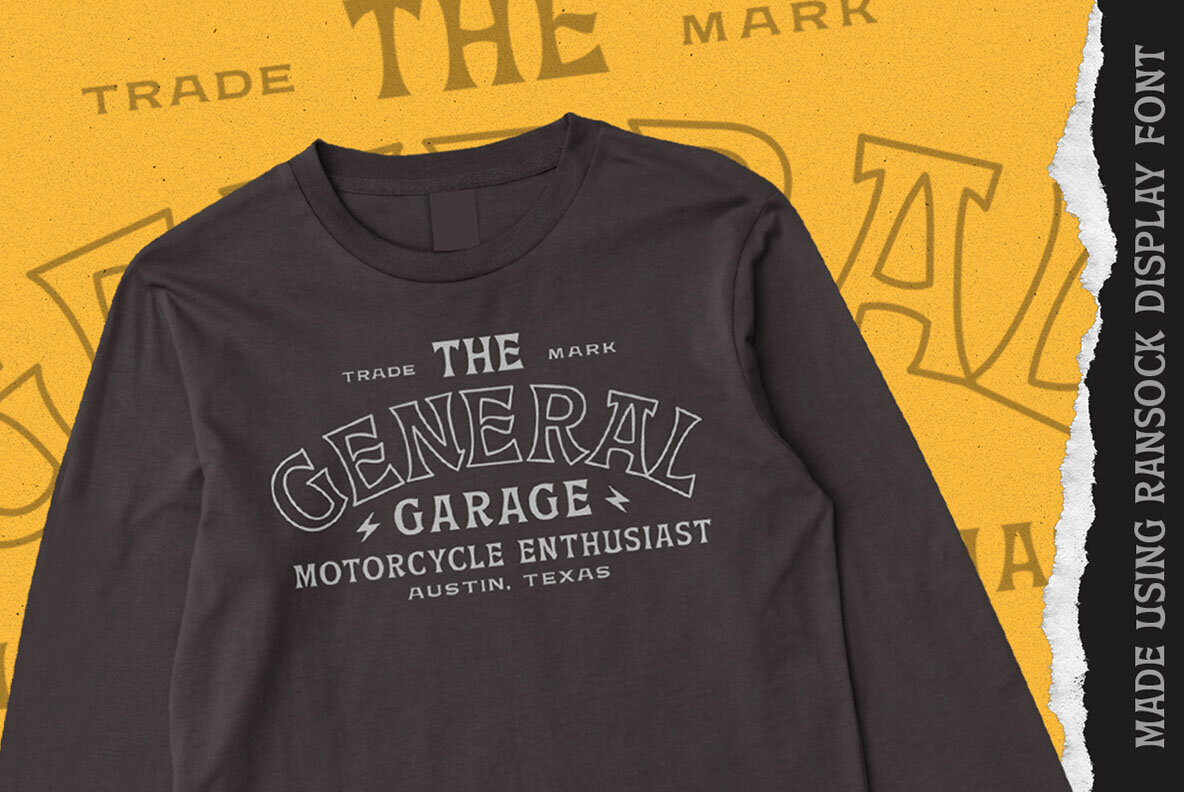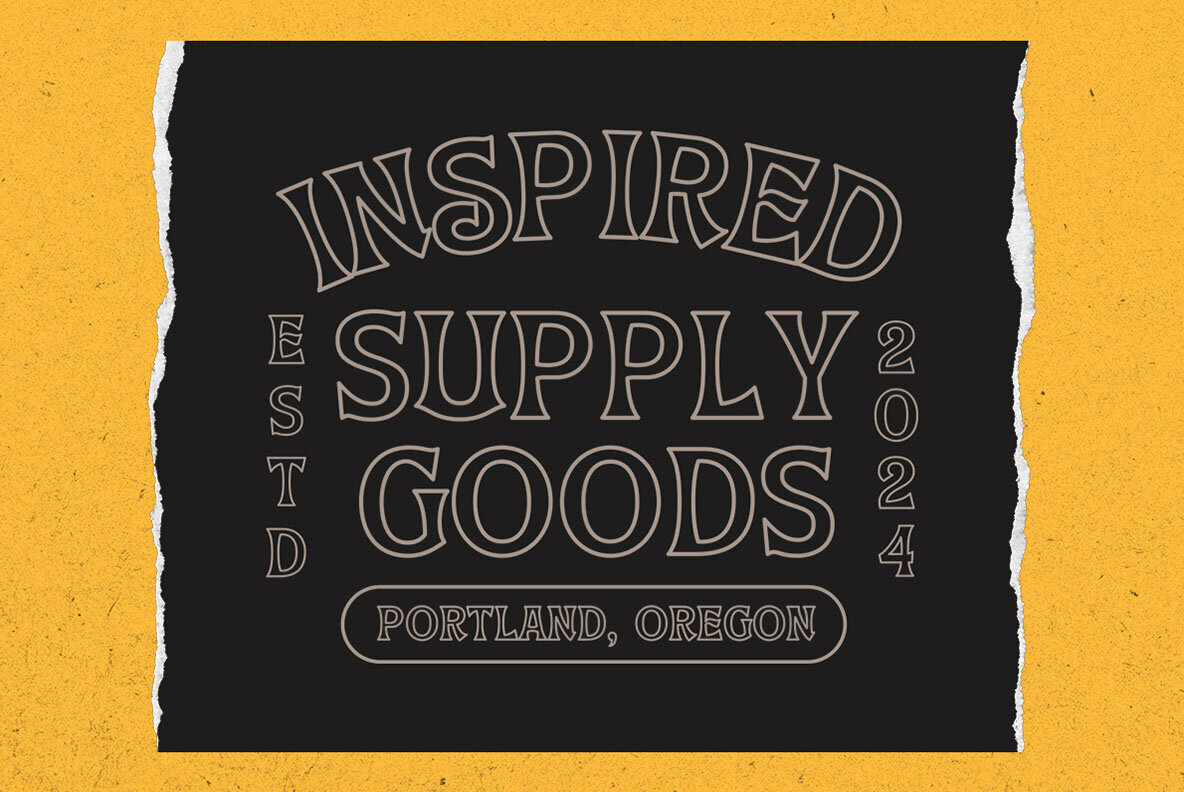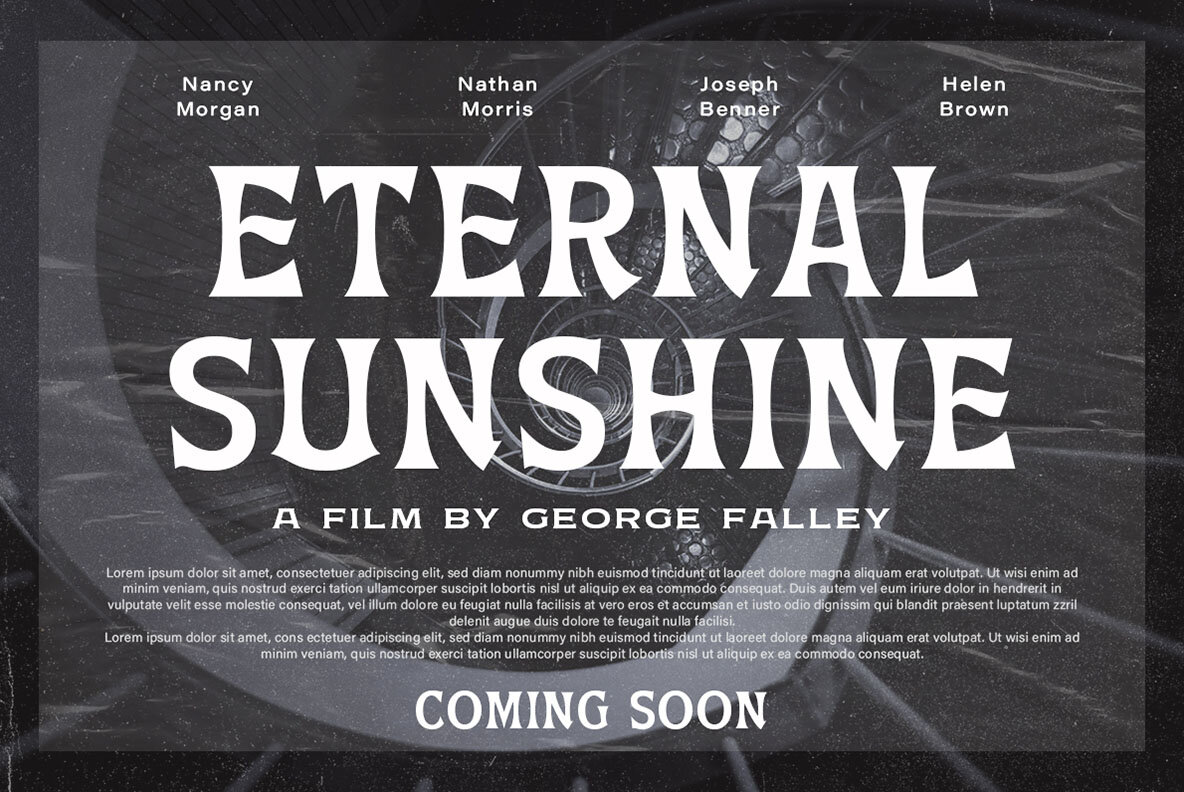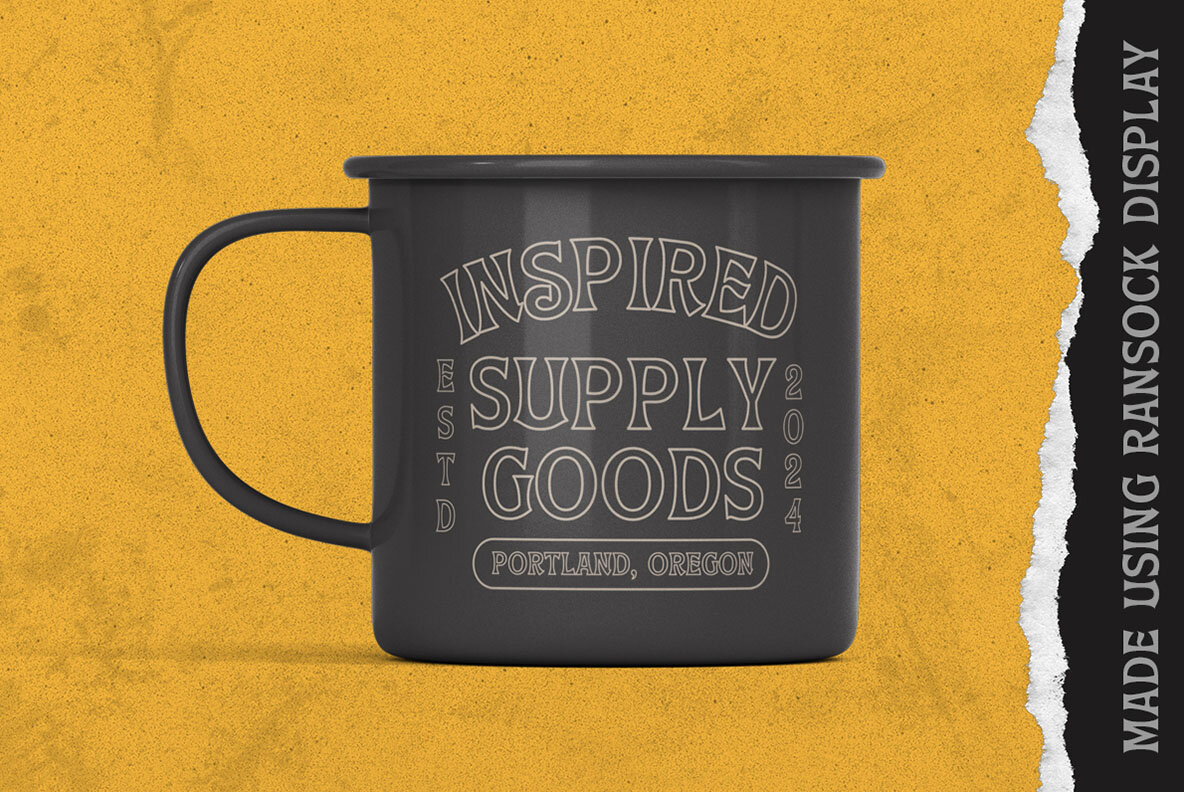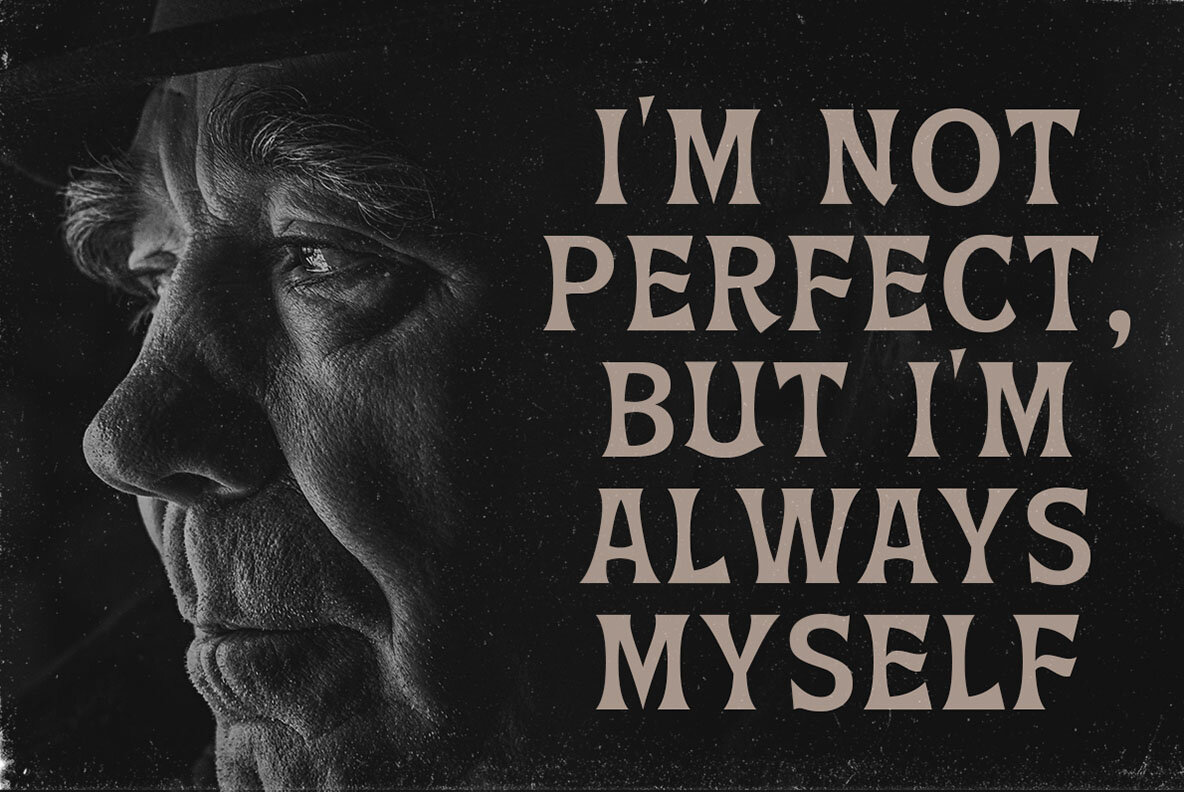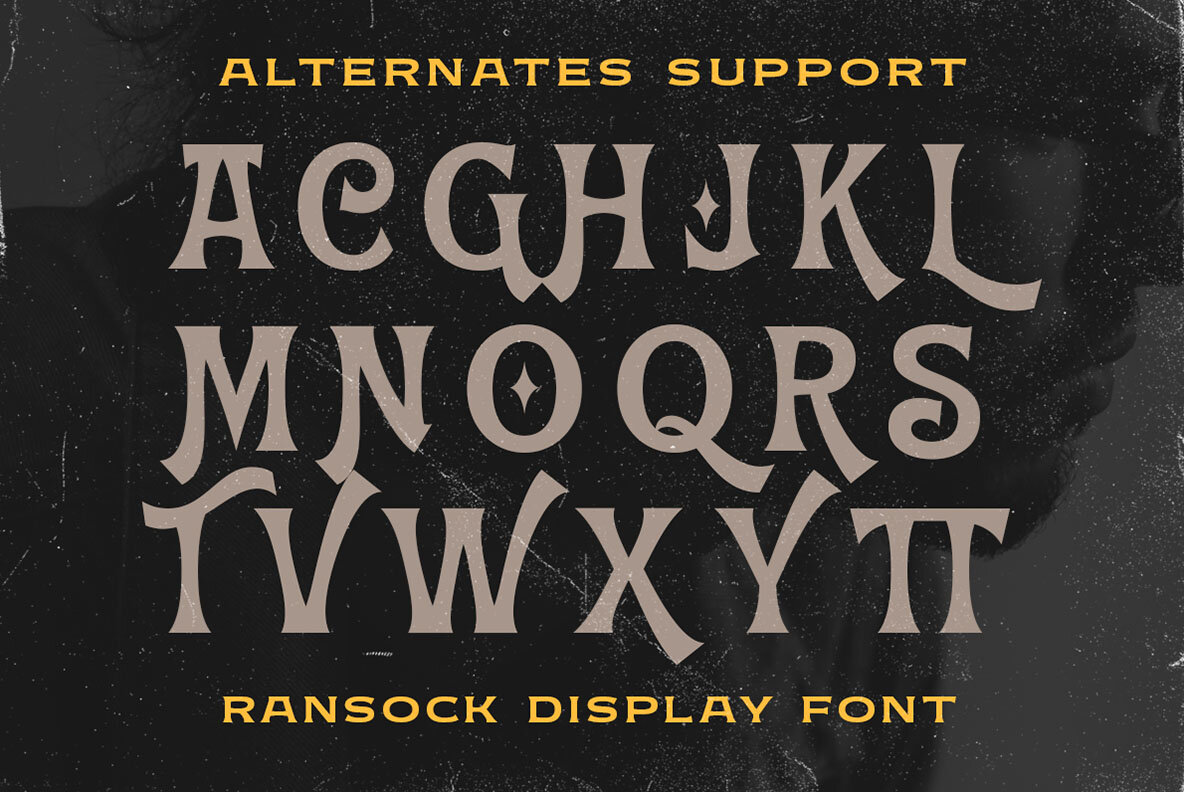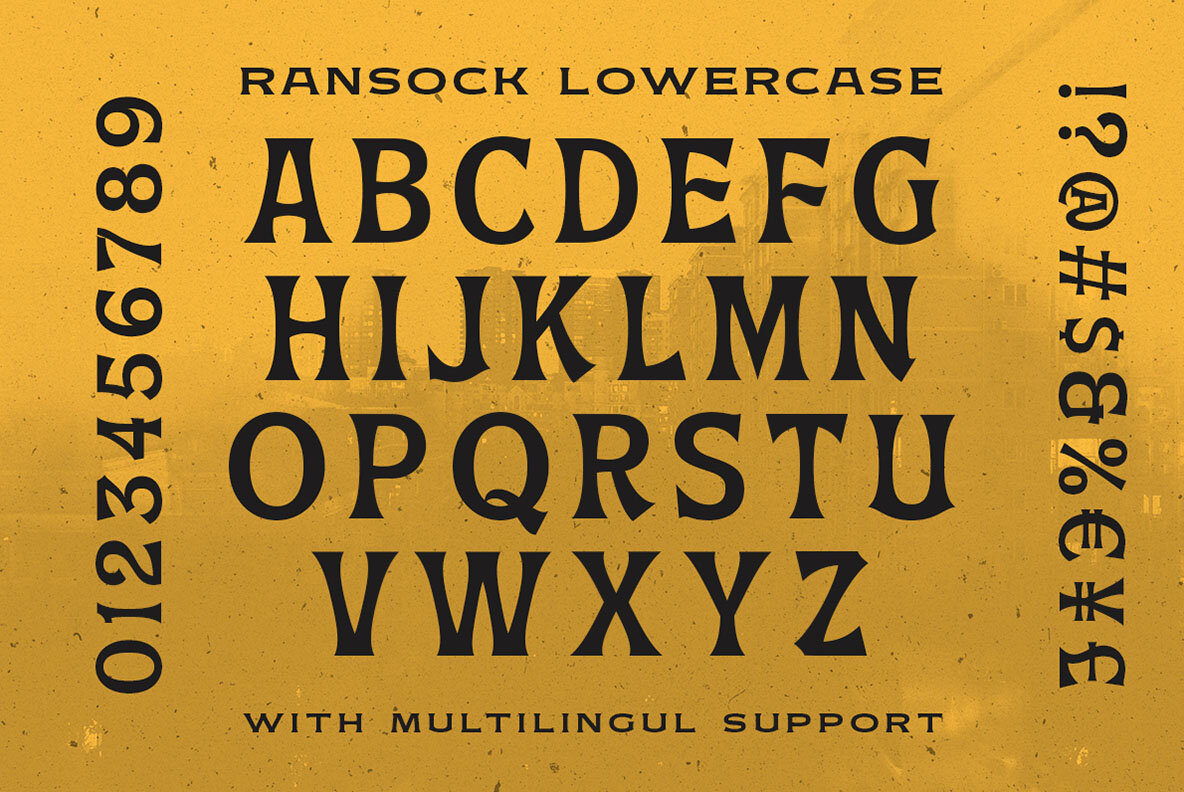
Ransock Font
Ransock
Ransock Display is a vintage display font. It's inspired by modern feels and classic looks. This font perfectly made to be applied especially in logo, and the other various formal forms such as invitations, labels, logos, magazines, books, greeting / wedding cards, packaging, fashion, make up, stationery, novels, labels or any type of advertising purpose Features : We highly recommend using a program that supports OpenType features and Glyphs panels like many of Adobe apps and Corel Draw, so you can see and access all Glyph variations.